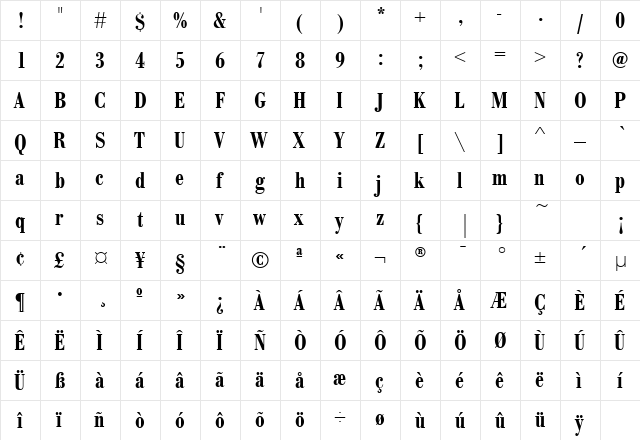
BodoniEF DemiBoldCond Font Preview
BodoniEF DemiBoldCond
BodoniEF DemiBoldCond Font Details
Design Context for BodoniEF Typeface
BodoniEF is a composed and adaptable typeface that performs quietly and consistently across a wide range of design contexts. The heavy weight commands attention and anchors typographic hierarchies. The condensed width makes it efficient for tight spaces without sacrificing legibility.